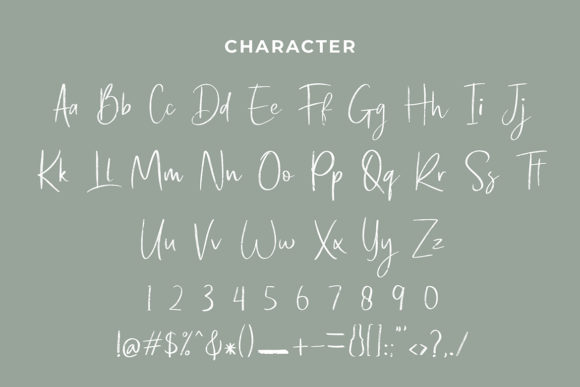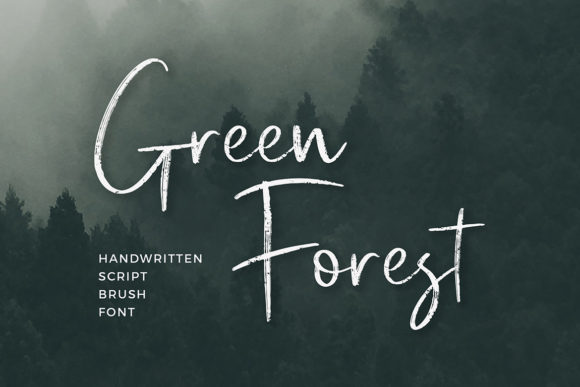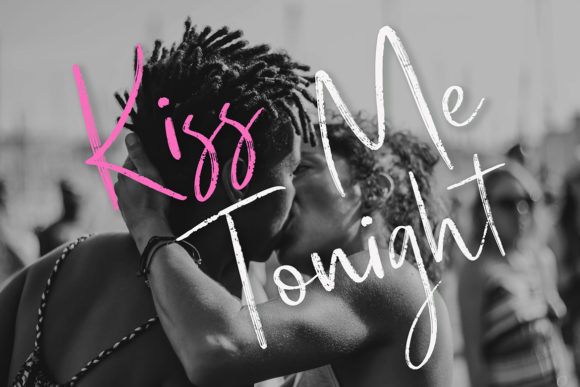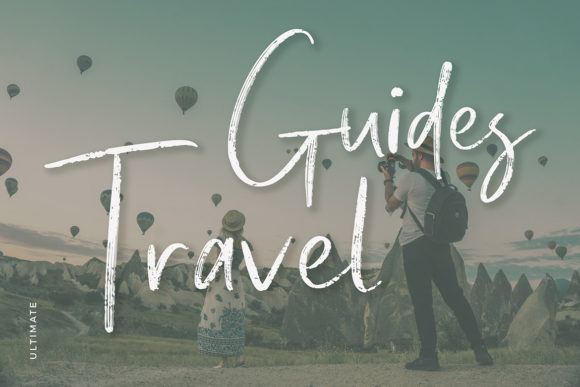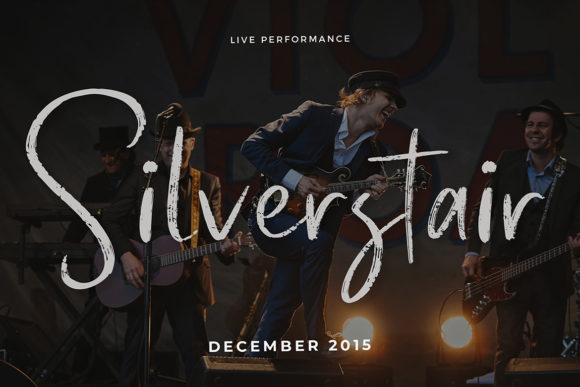
HomeScript FontsBlack Shine Font Script Fonts Black Shine Font FacebookXPinterestWhatsApp Black Shine Font Poster 2 Black Shine Font Poster 3 Black Shine Font Poster 4 Black Shine Font Poster 5 Black Shine Font Poster 6 About Black Shine Font Black Shine features the formatikastd’s distinct handwriting style with a raw update. DOWNLOAD NOW People also explored Wallower Font Poster Sans Extreme Spring Leaves Font Phiyada Aor Lf Font Lulucon Marker Style Font Script Art Font Tailor/Fashion Business Card Mockup Kindness Unicorn Font Queen Kyra Font 394 0 TagsBlack Shine Font Previous articleDark Fire FontNext articleCaroline Font LEAVE A REPLY Cancel reply Comment: Please enter your comment! Name:* Please enter your name here Email:* You have entered an incorrect email address! Please enter your email address here Website: Save my name, email, and website in this browser for the next time I comment. Personal Use Free Market Love Personal Use Free Read more about this font Deftone Personal Use Free Read more about this font Mandarins Personal Use Free Read more about this font Abuget Free Script Personal Use Free Read more about this font BLOG Fonts That Capture the Spirit of New York City New York City is more than just a place—it’s an experience, a rhythm, a visual language... Best Fonts for T-Shirt Design – Top 2025 Picks How to Cut Any Font on Cricut: Convert a Font to SVG (Free) To increase your work productivity, choose the most readable fonts.